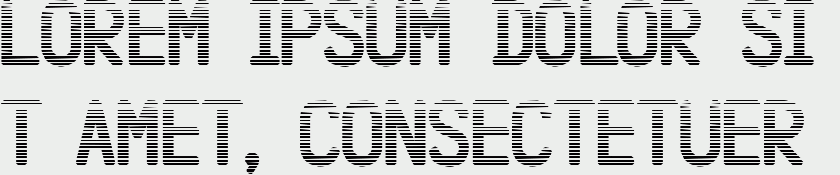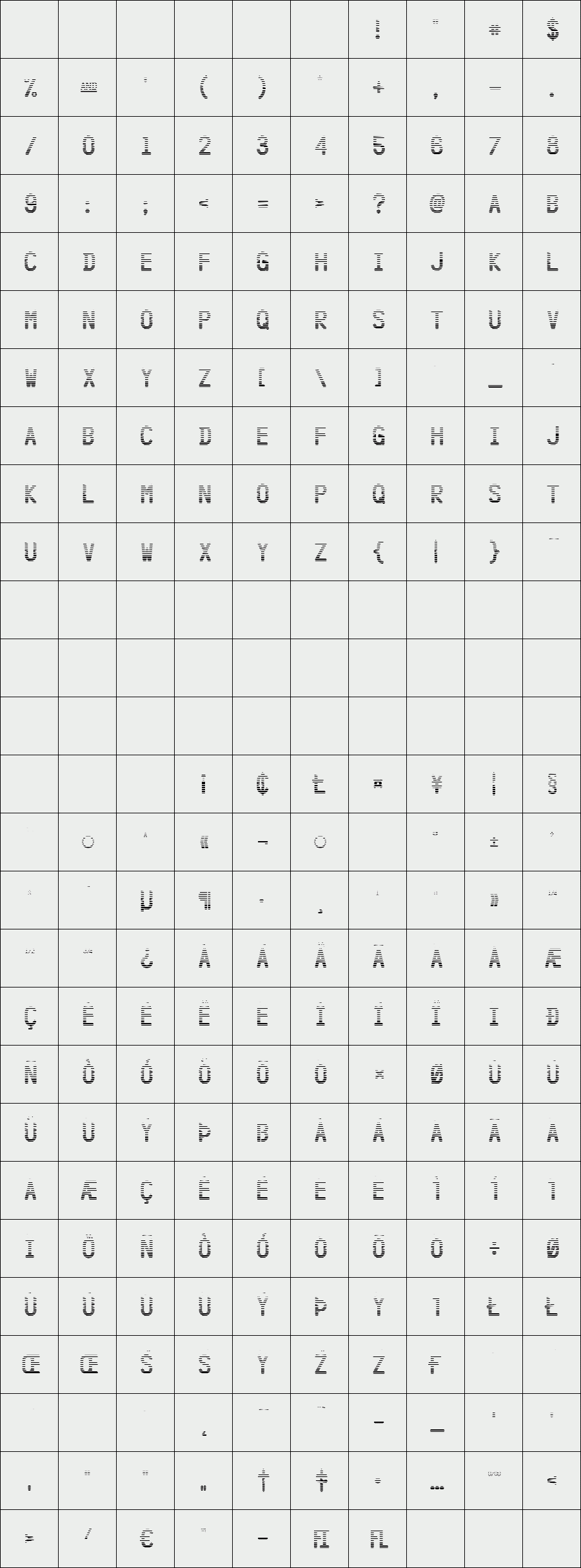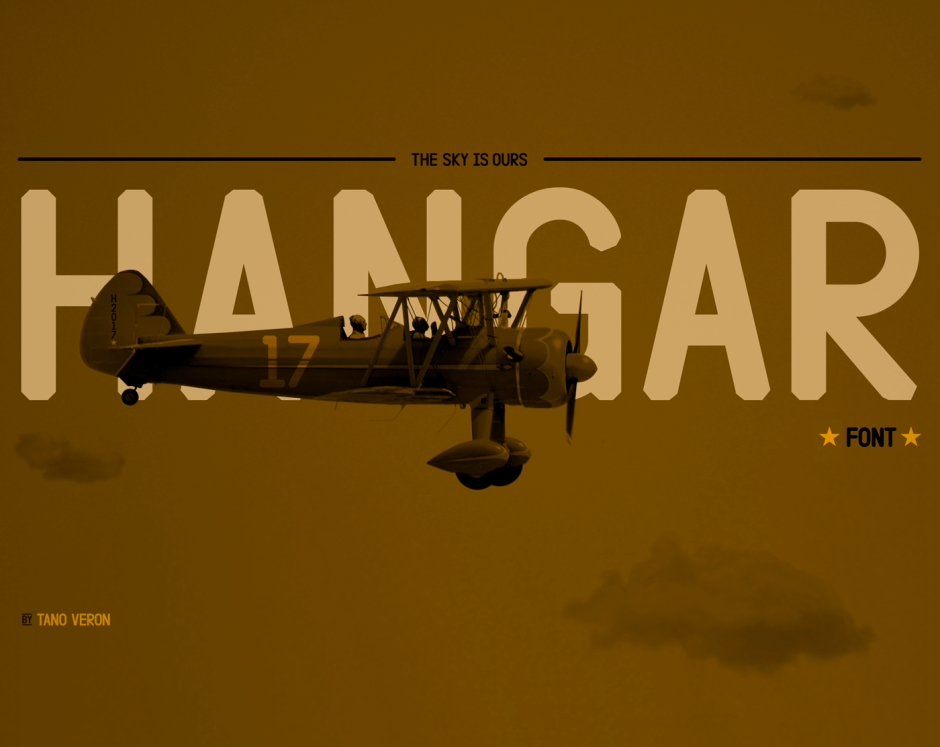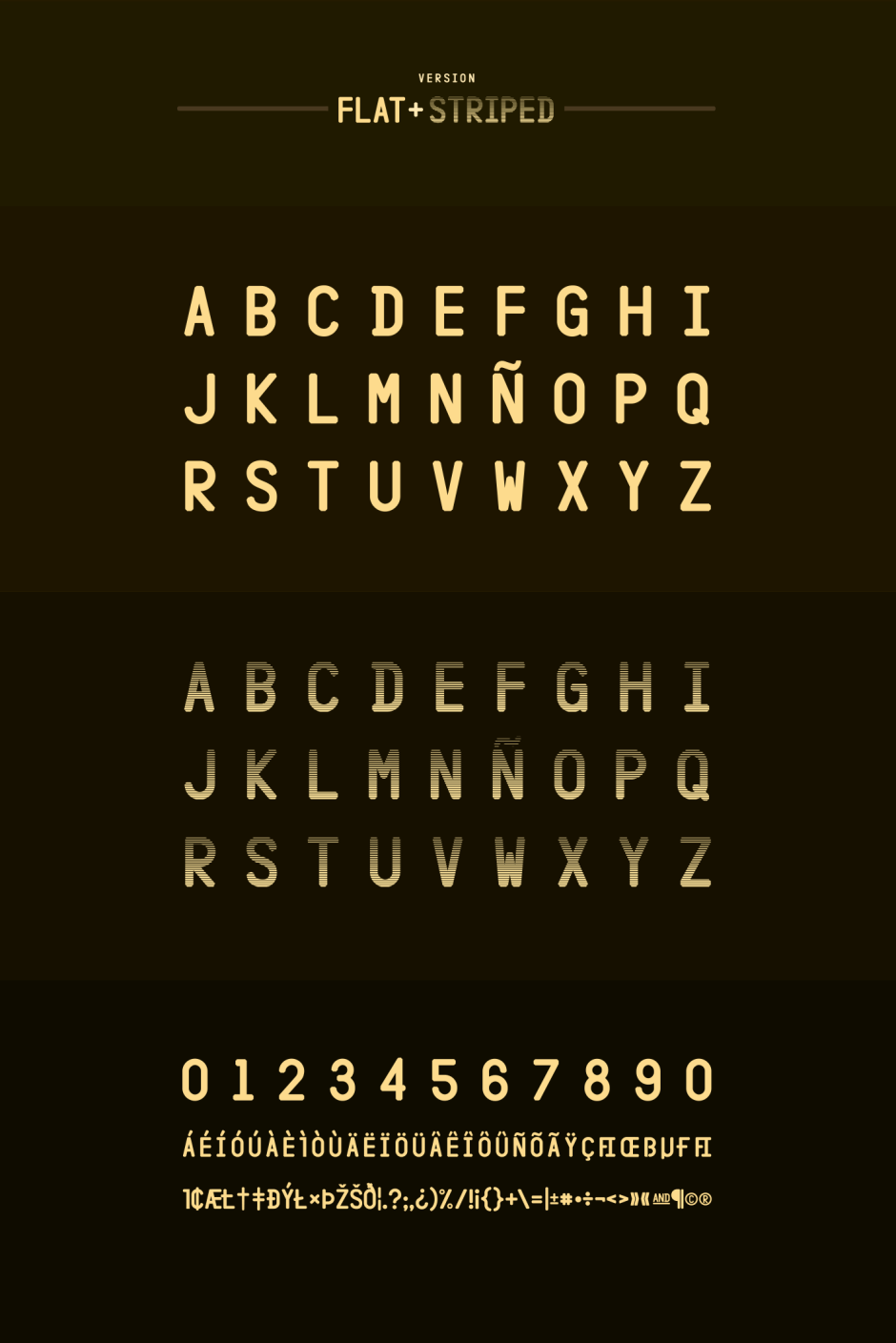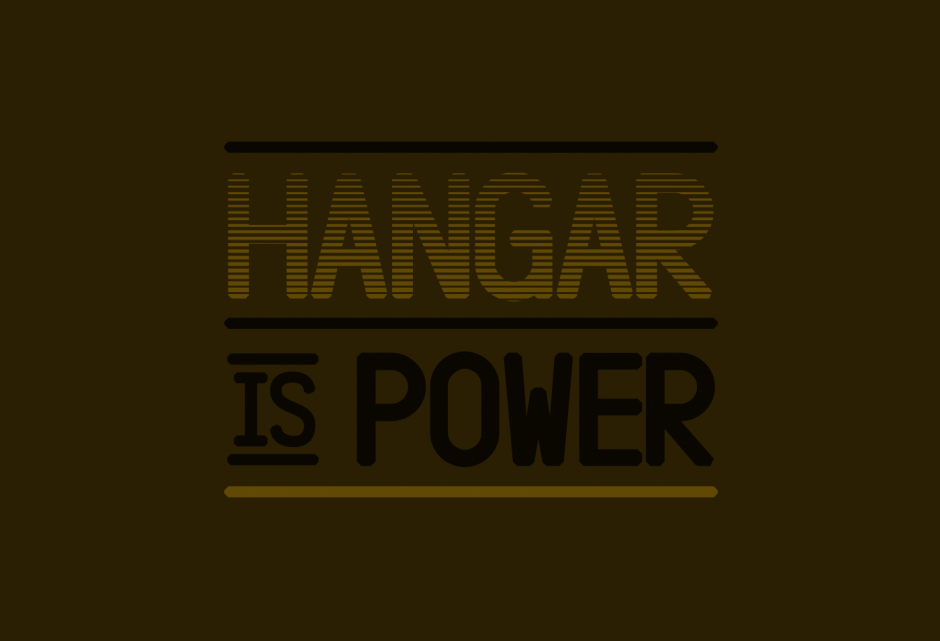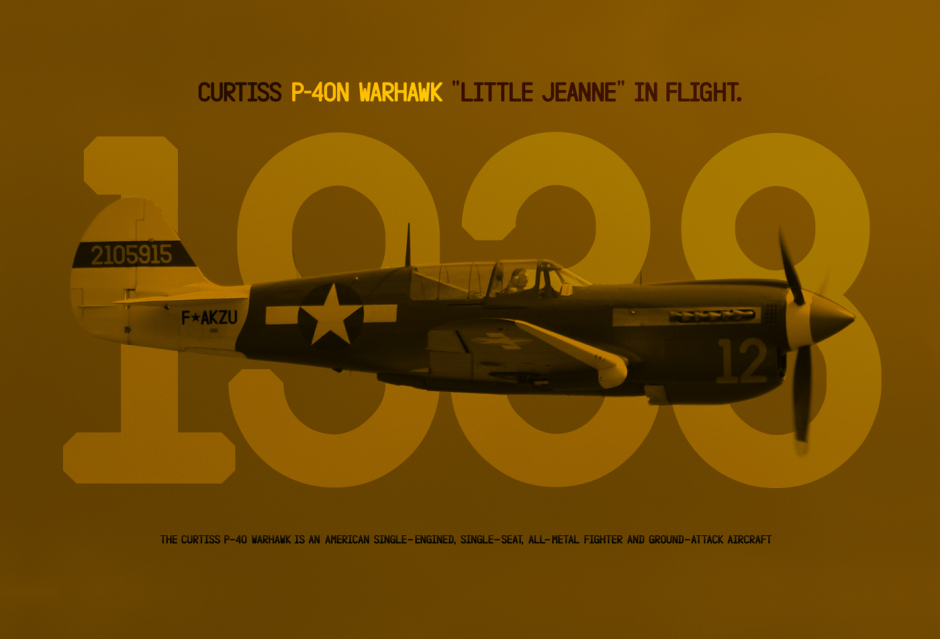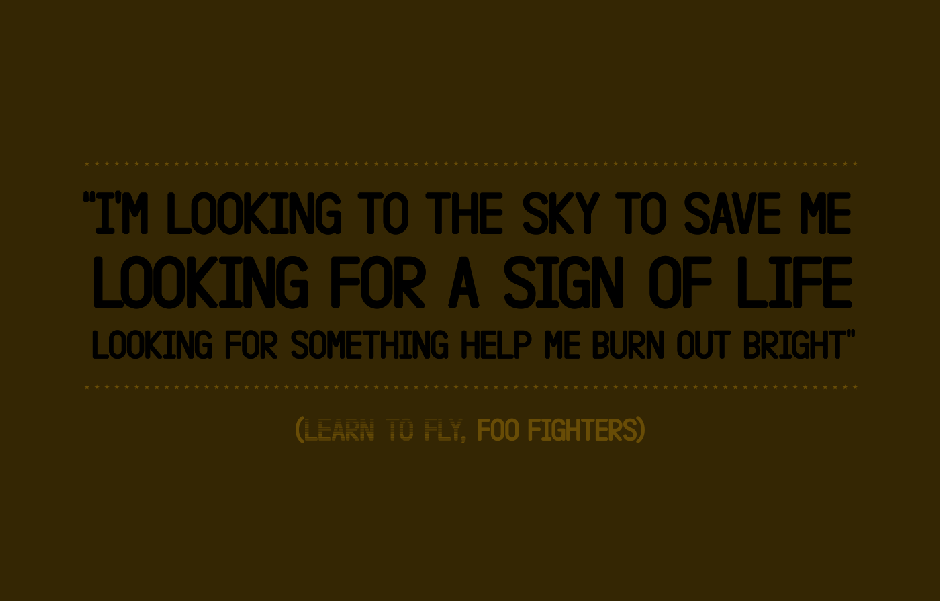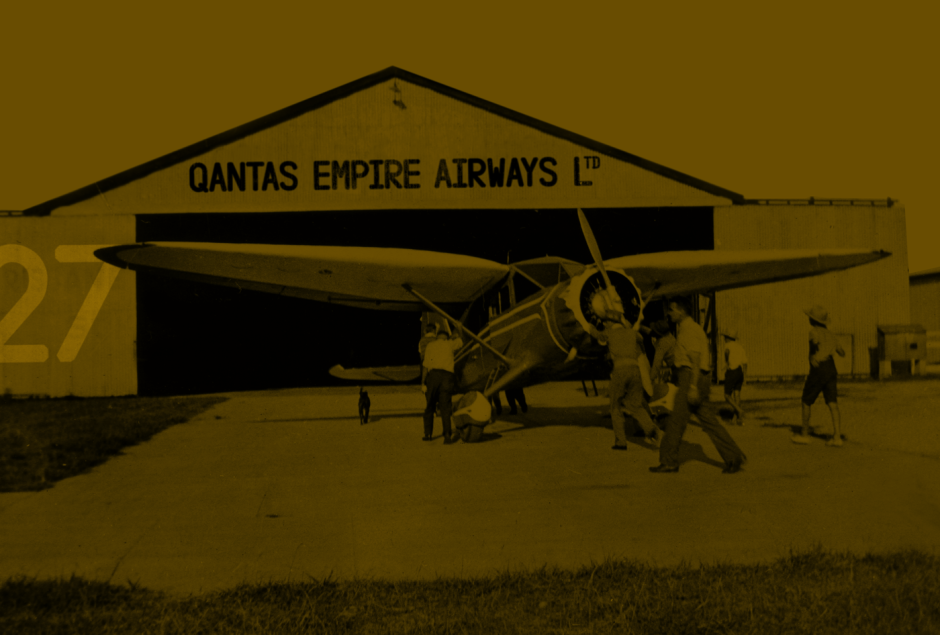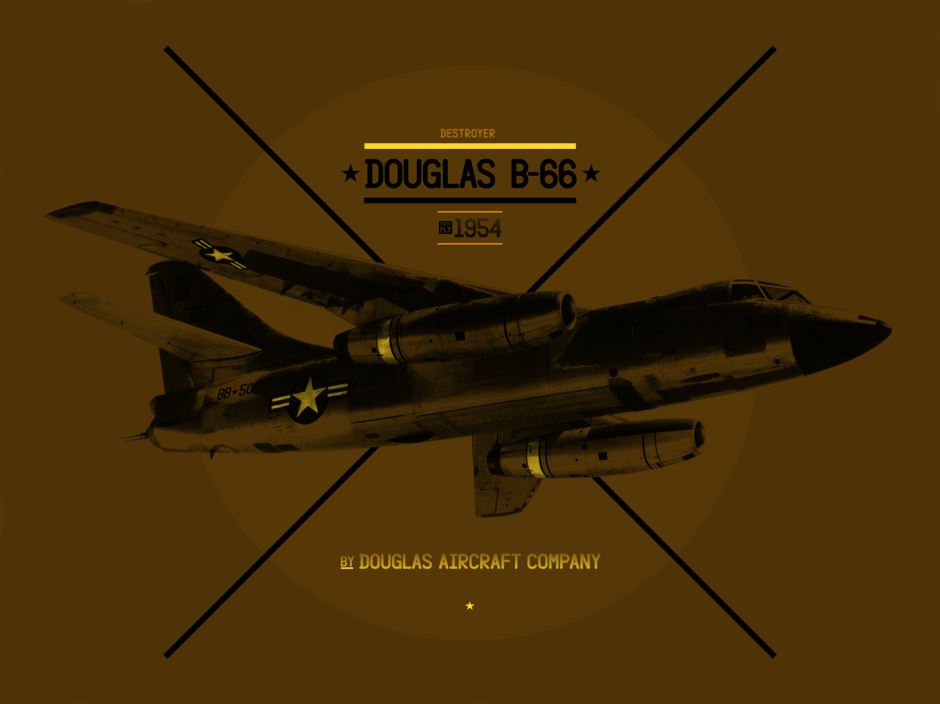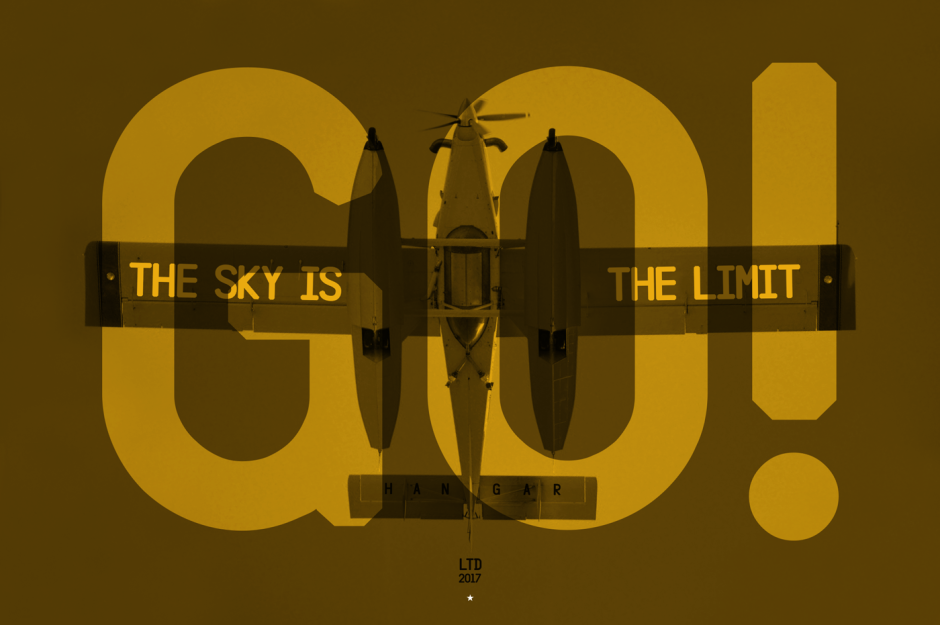
HANGAR
HANGAR is an uppercase display typeface inspired by vintage aircraft models.
Is a sans serif, with retro style, powerfull & strong.
Designer: Tano Veron